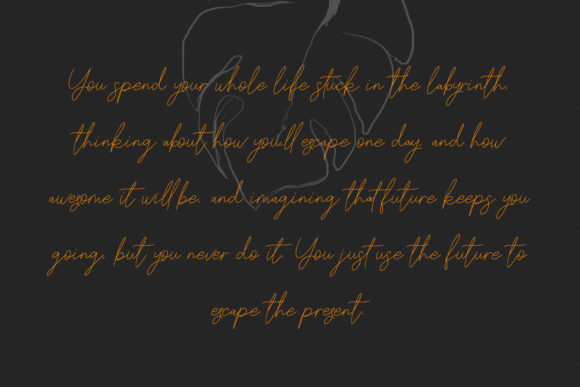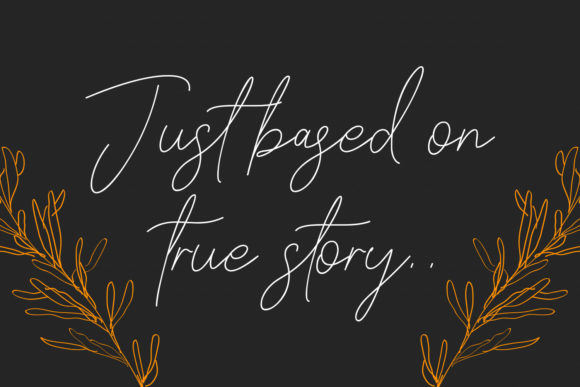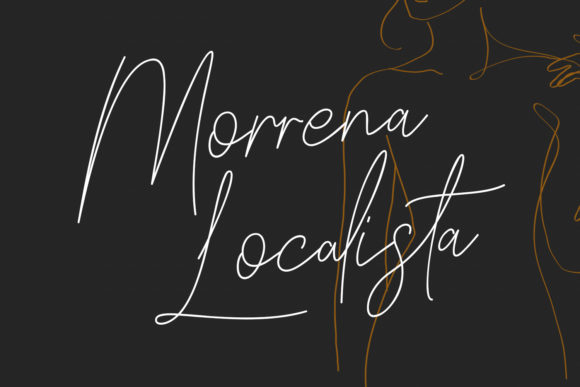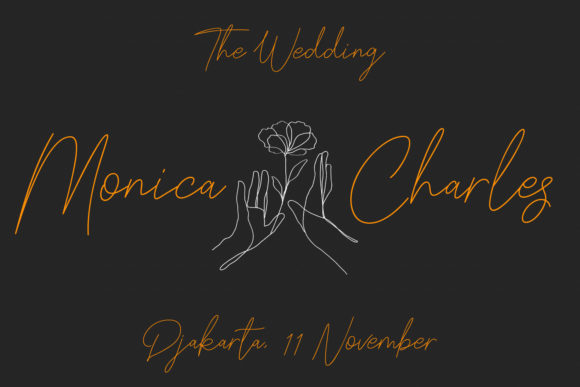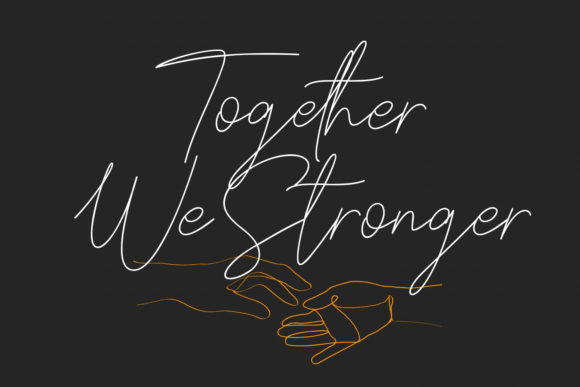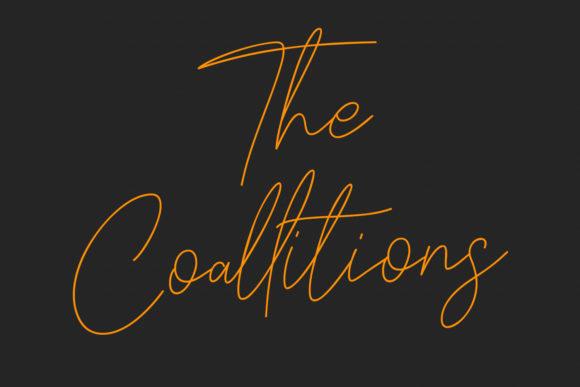
Introduction to Farloxy Script Font
You know that feeling when you stumble upon a design element that instantly elevates your creative project? For many designers, that moment is what makes all the difference between a good design and a great one. As you browse through the vast world of fonts, have you ever come across a script font that stops you in your tracks? For us, that moment came when we discovered the Farloxy Script Font.
This beautiful, thin-lettered script font has captured the hearts of designers everywhere, and for good reason. Its ravishing style makes it the perfect choice for creating gorgeous wedding invitations, beautiful stationery art, and eye-catching social media posts. With its high-quality design, the Farloxy Script Font is a valuable resource for designers looking to add a touch of elegance to their work.
Not only is the Farloxy Script Font a stunning design element, but it’s also incredibly versatile. Whether you’re working on a project that requires a transparent background or a free download, this font is sure to impress. With its transparent background option, you can easily overlay the Farloxy Script Font on any image or design, making it the perfect design resource for any creative project.
Key Features of Farloxy Script Font
- High-quality design for creative projects, offering a unique and elegant feel.
- Comes in a transparent background, making it easy to use with various design resources.
- Farloxy Script Font is a versatile font suitable for a wide range of creative applications, including invitations, logos, and more.
- Unique, handwritten style with a touch of sophistication, perfect for designers seeking a high-quality font for their projects.
Honest Review: Farloxy Script Font
As a designer, I’m always on the lookout for high-quality fonts to elevate my creative projects. Recently, I stumbled upon the Farloxy Script Font, and I’m excited to share my thoughts on this design resource.
- ✨ Beautiful, elegant script font perfect for weddings, invitations, or any project that needs a touch of sophistication.
- ✨ The font is highly legible, making it suitable for both digital and print designs.
- ✨ The transparent background option provides a clean and minimalist look, ideal for modern designs.
- ⚠️ The font may not be suitable for bold or dramatic headings, as it can appear too delicate.
- ⚠️ Some characters may require manual adjustments to ensure proper spacing and alignment.
Overall, I’m impressed with the Farloxy Script Font’s quality and versatility. While it may not be the perfect fit for every design project, it’s an excellent addition to any designer’s toolkit, especially for those working on high-end or creative projects.
Tips for Getting the Most Out of Farloxy Script Font
Experiment with different font sizes, colors, and styles to achieve a unique look. Use the font in conjunction with other design elements, such as images and shapes, to create a visually appealing design.
Common Use Cases for Farloxy Script Font
Use Farloxy Script Font in a variety of creative projects, including invitations, posters, and social media graphics. The font’s high-quality and transparent background make it ideal for use in digital designs.